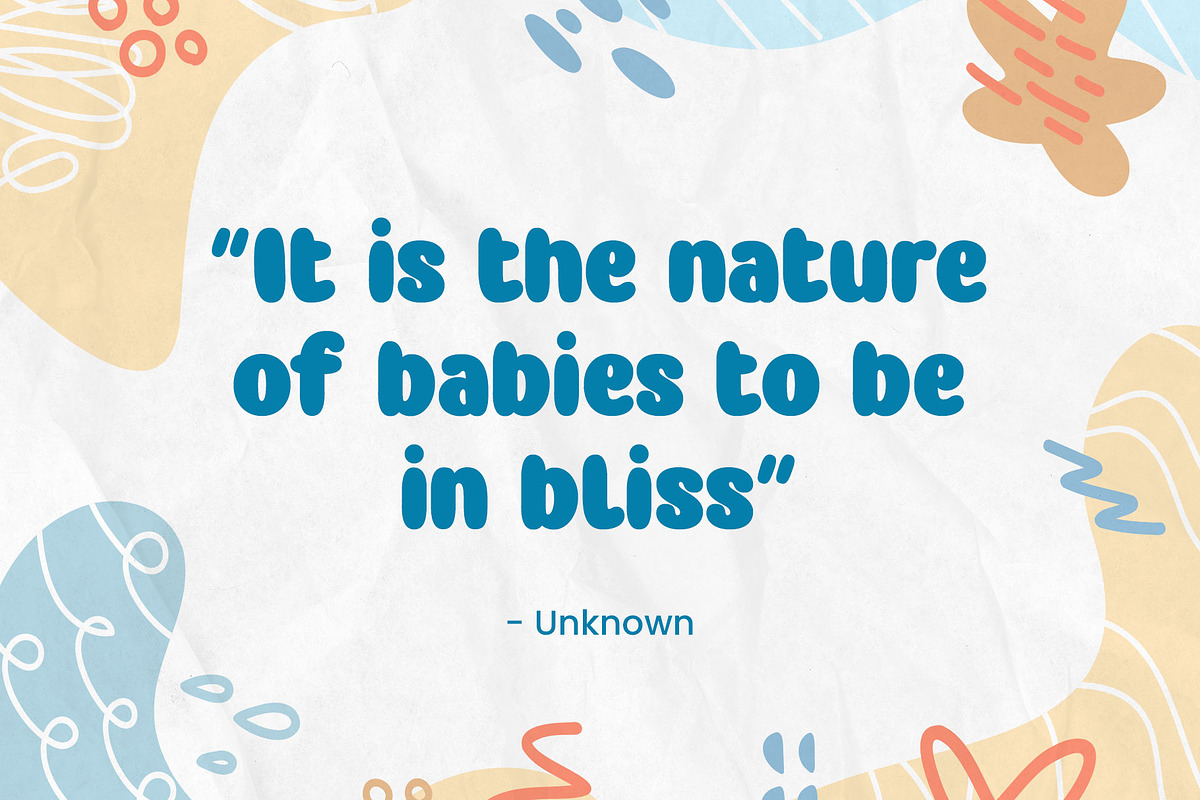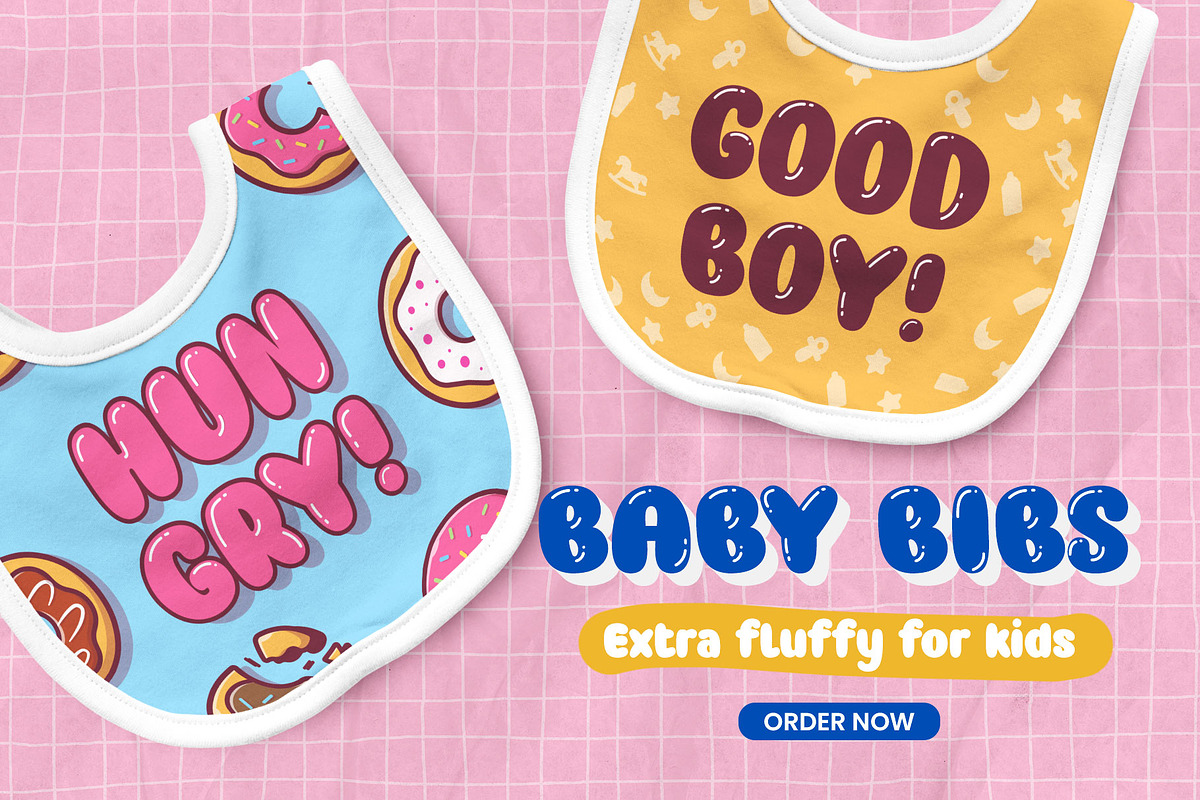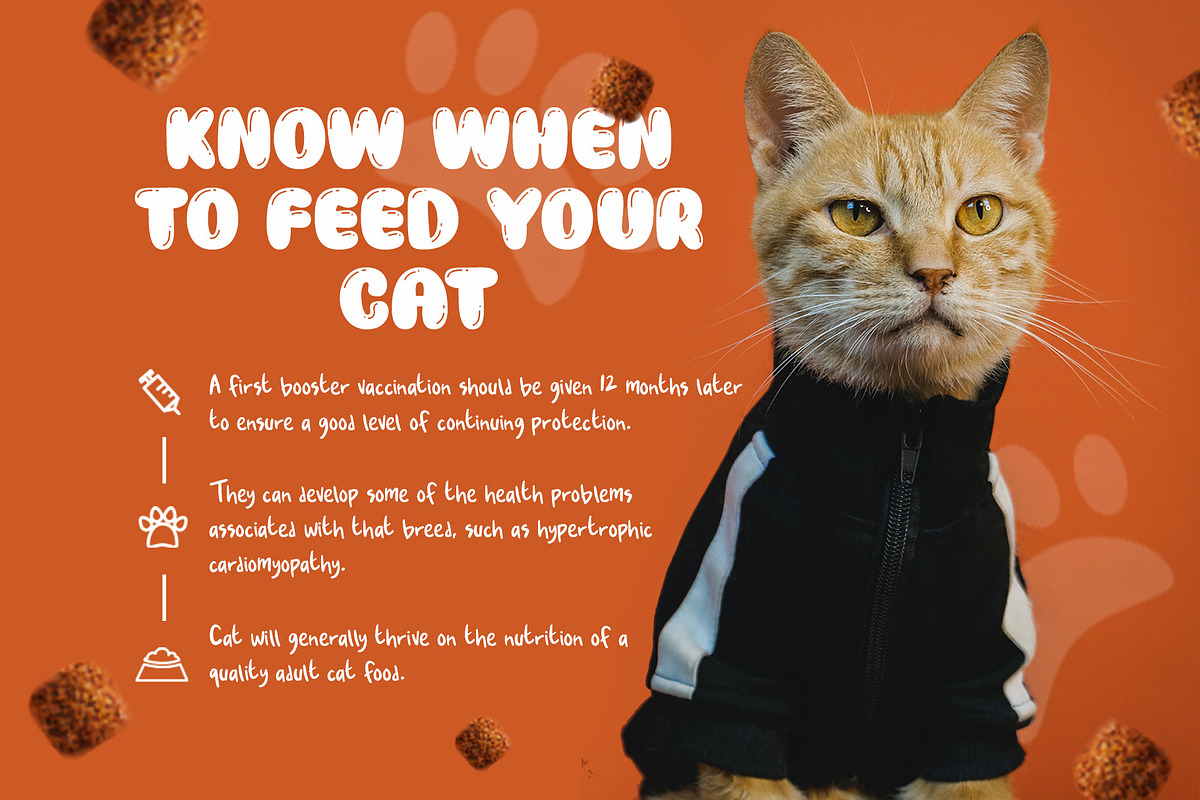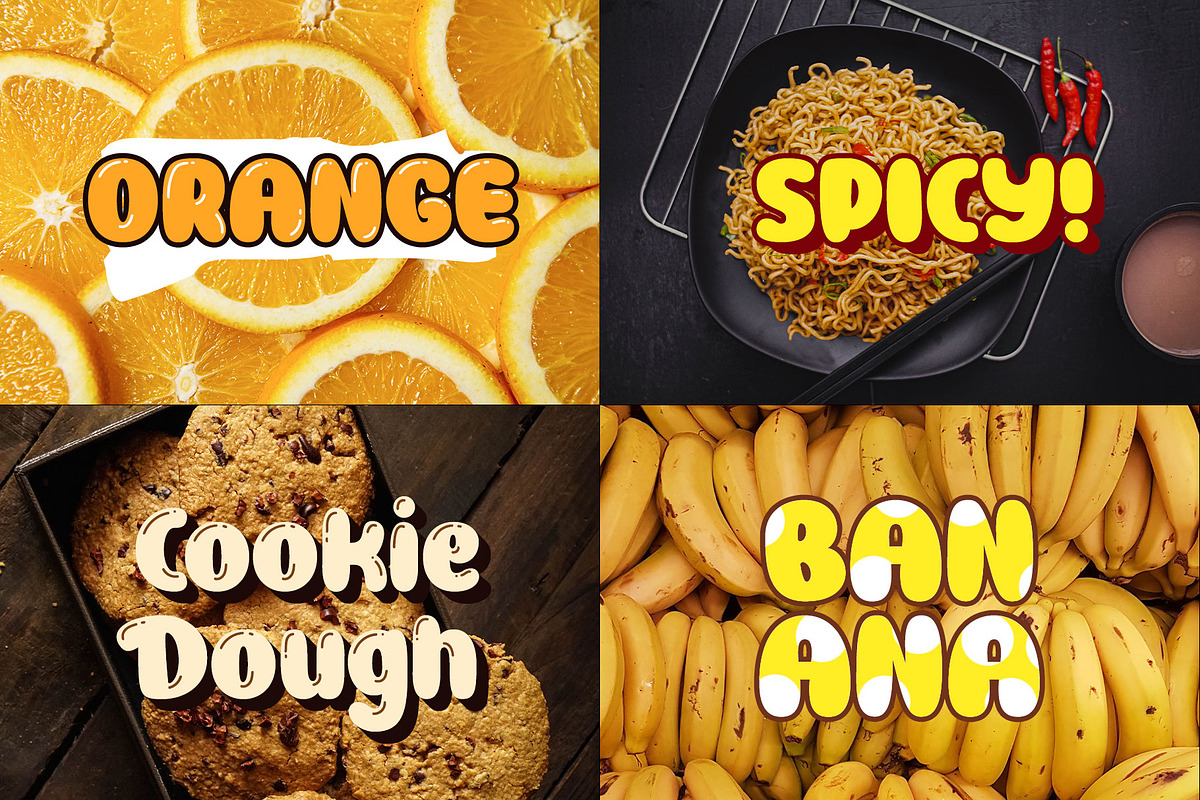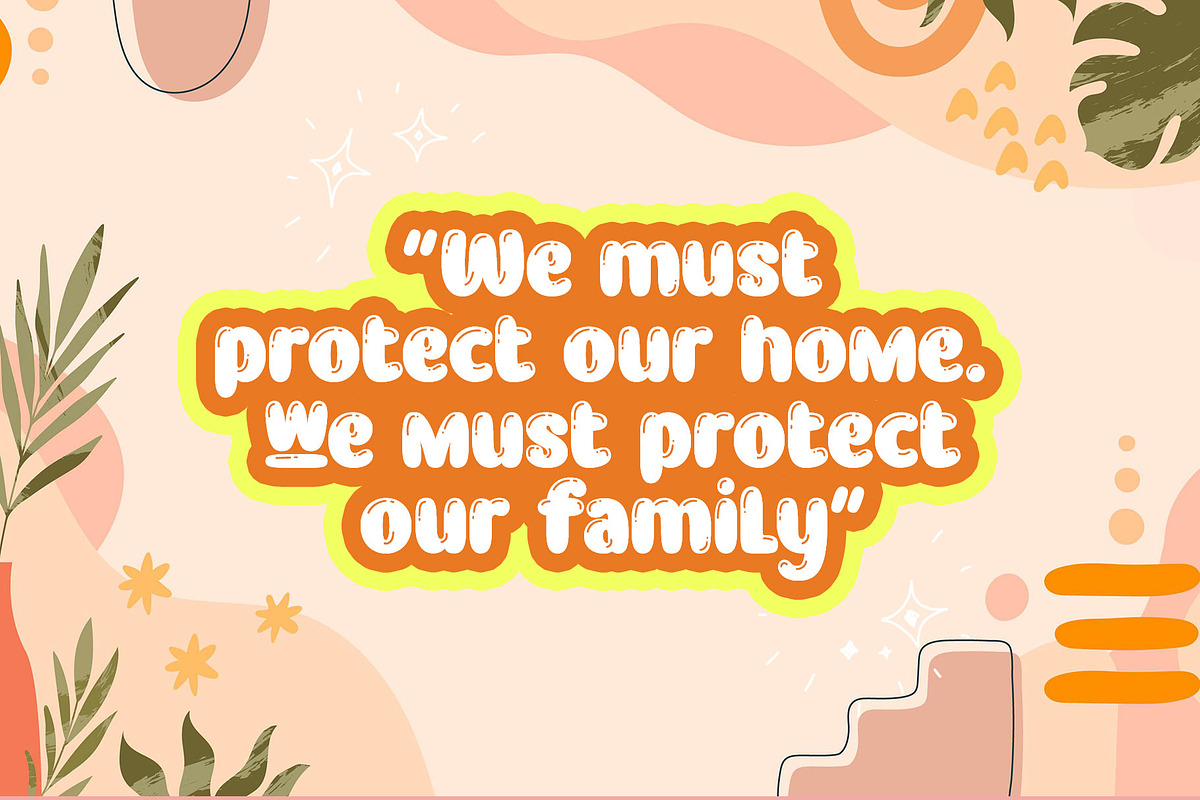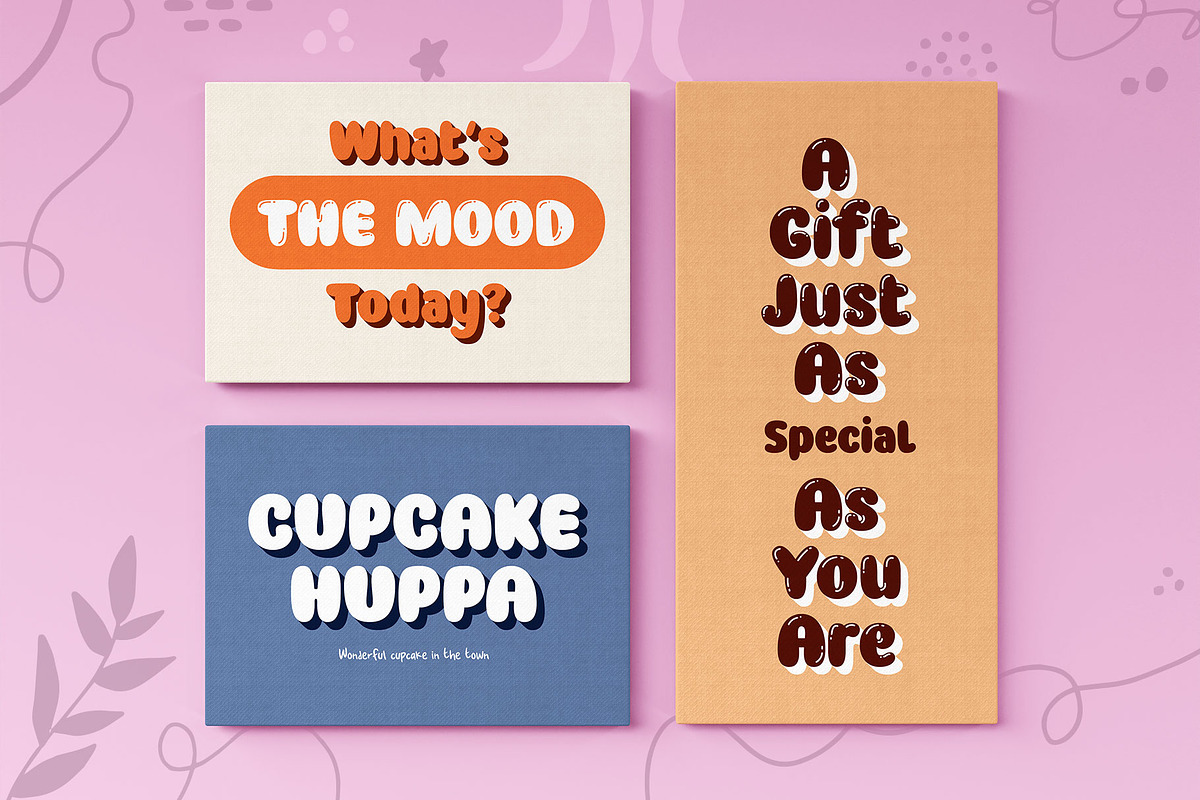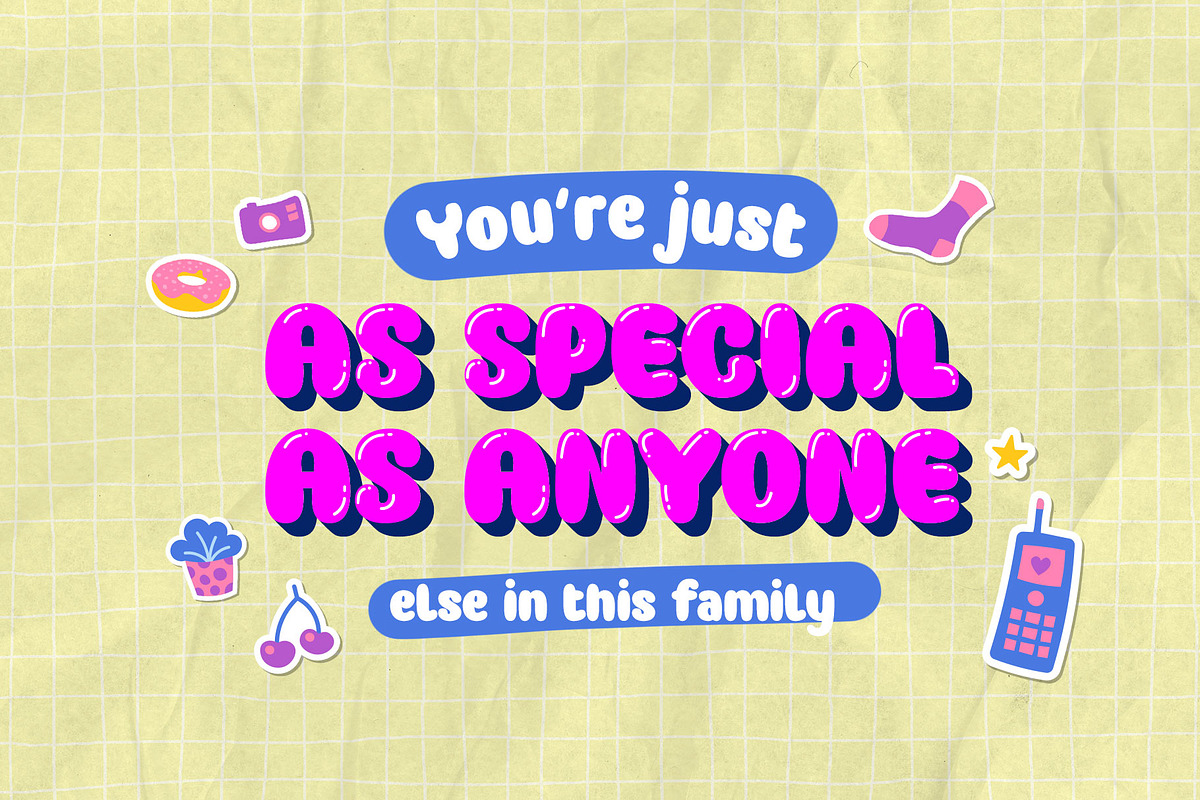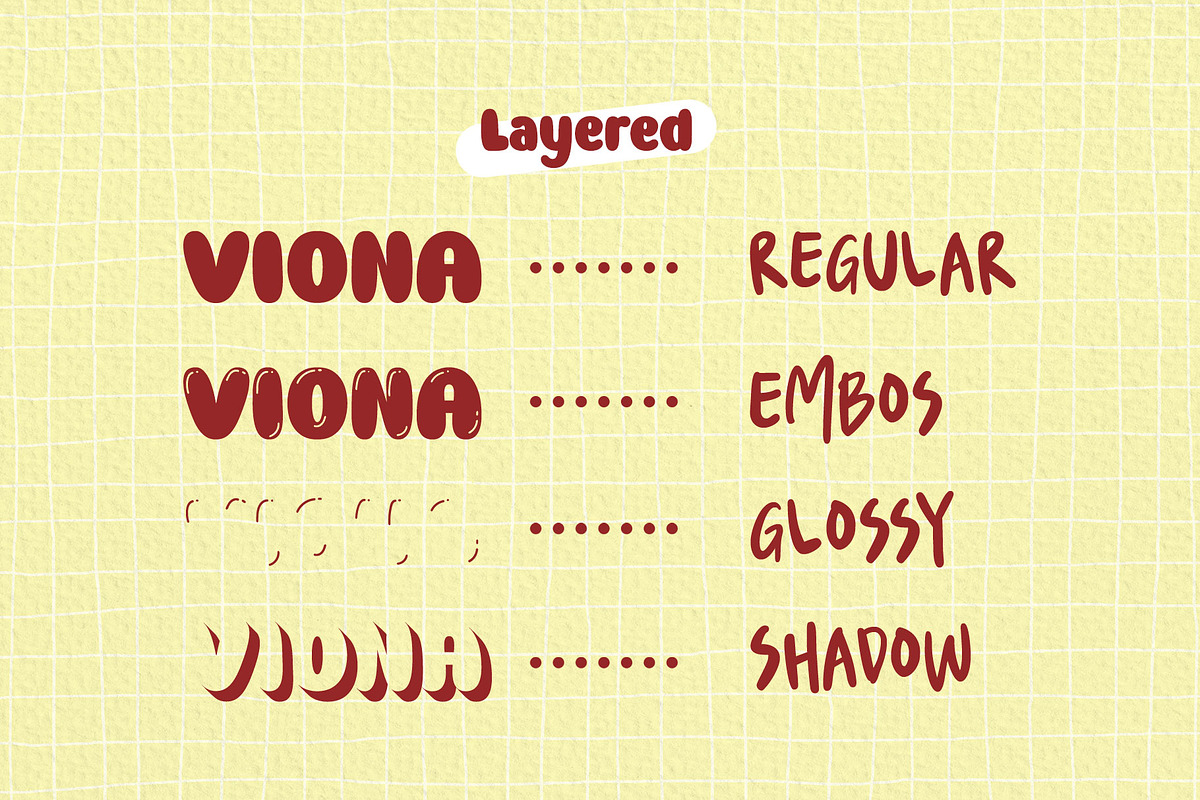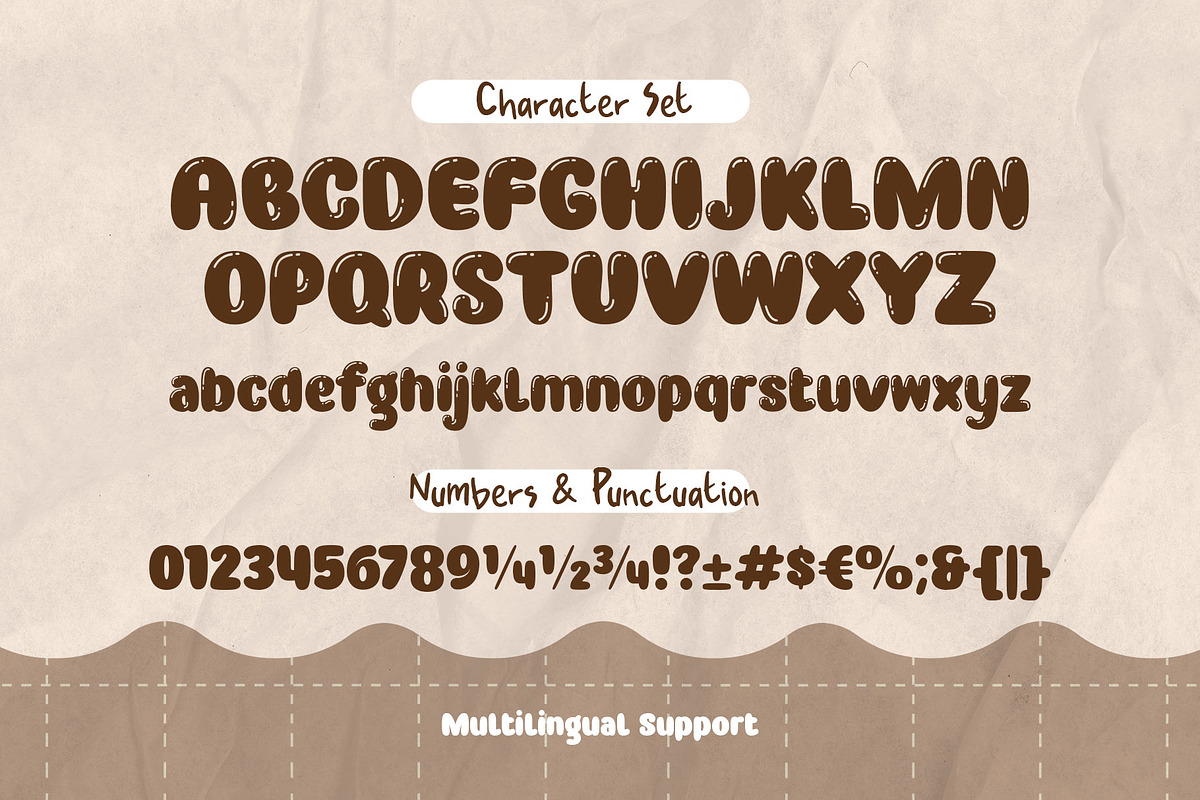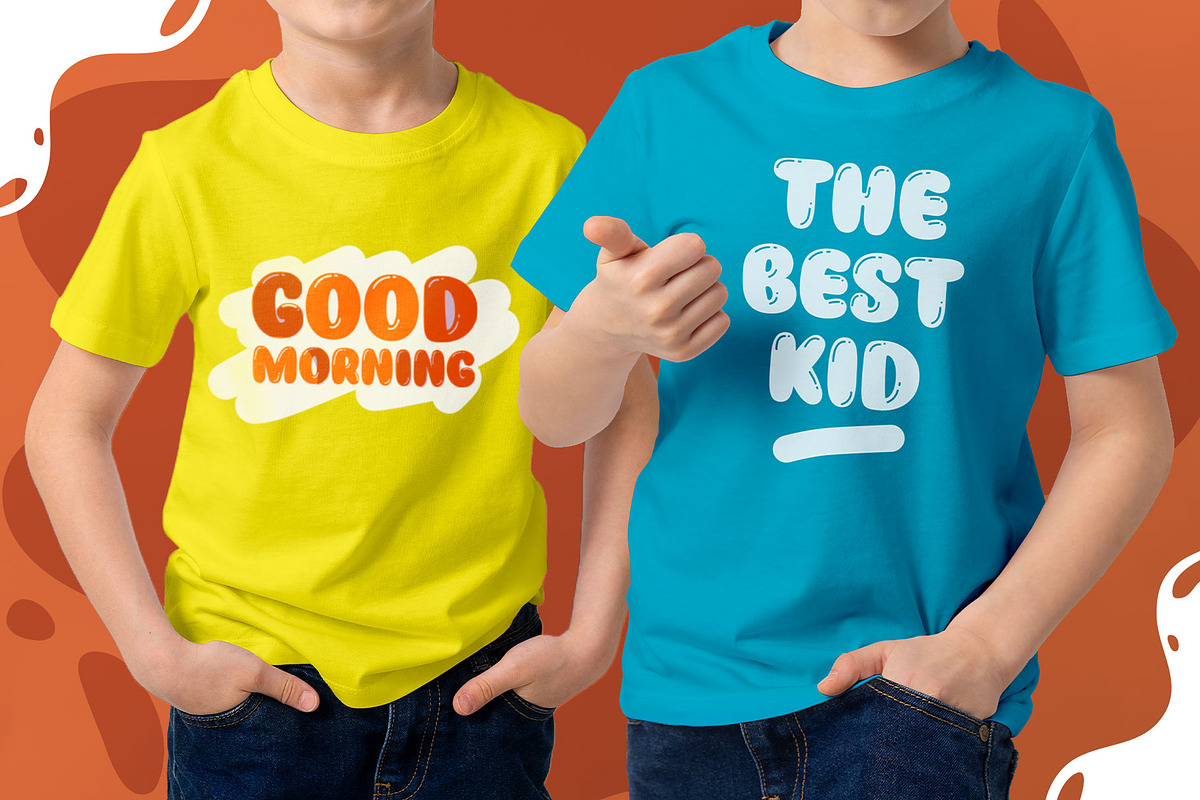
Baloon Everyday - Layered Font
Baloon every day is a layered font. Consists of 4 elements that you can combine to get a cute & stylish word. There is Regular, Shadow, Emboss, and Glossy.
This font set is bold, fatty, rounded and funny and suitable for kids' themes or entertaining design. Equipped with stylistic alternates and multilingual support.